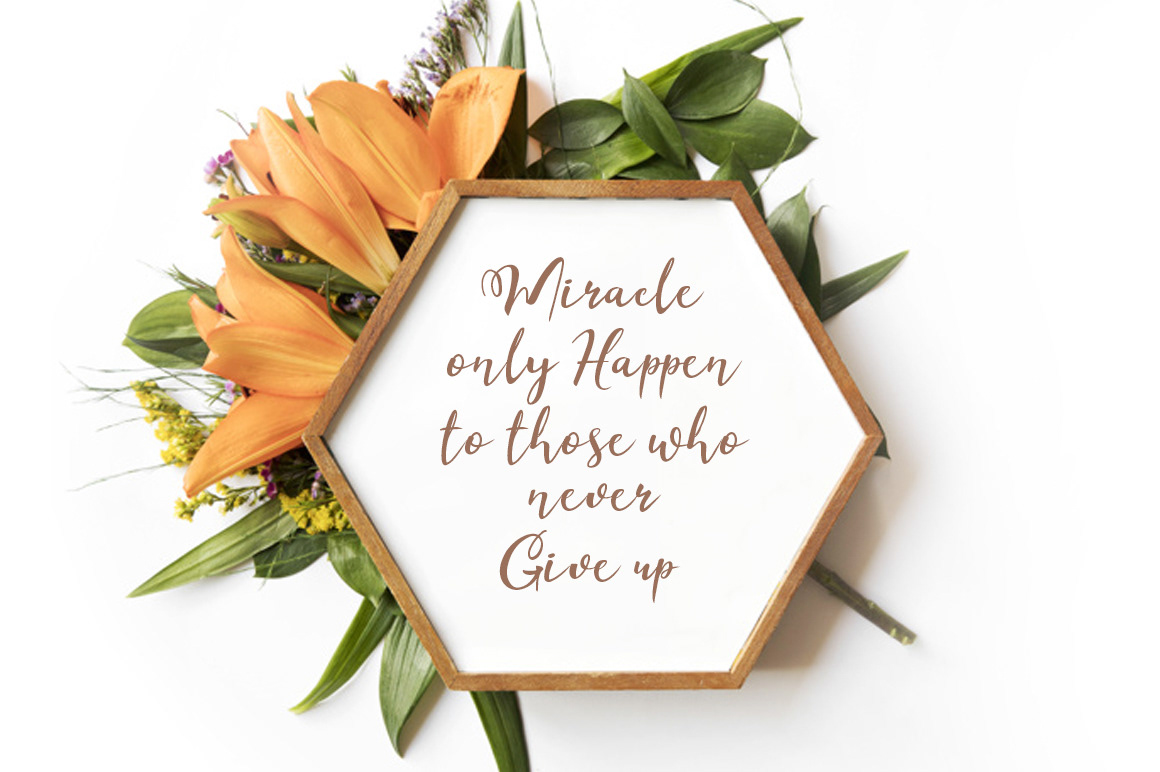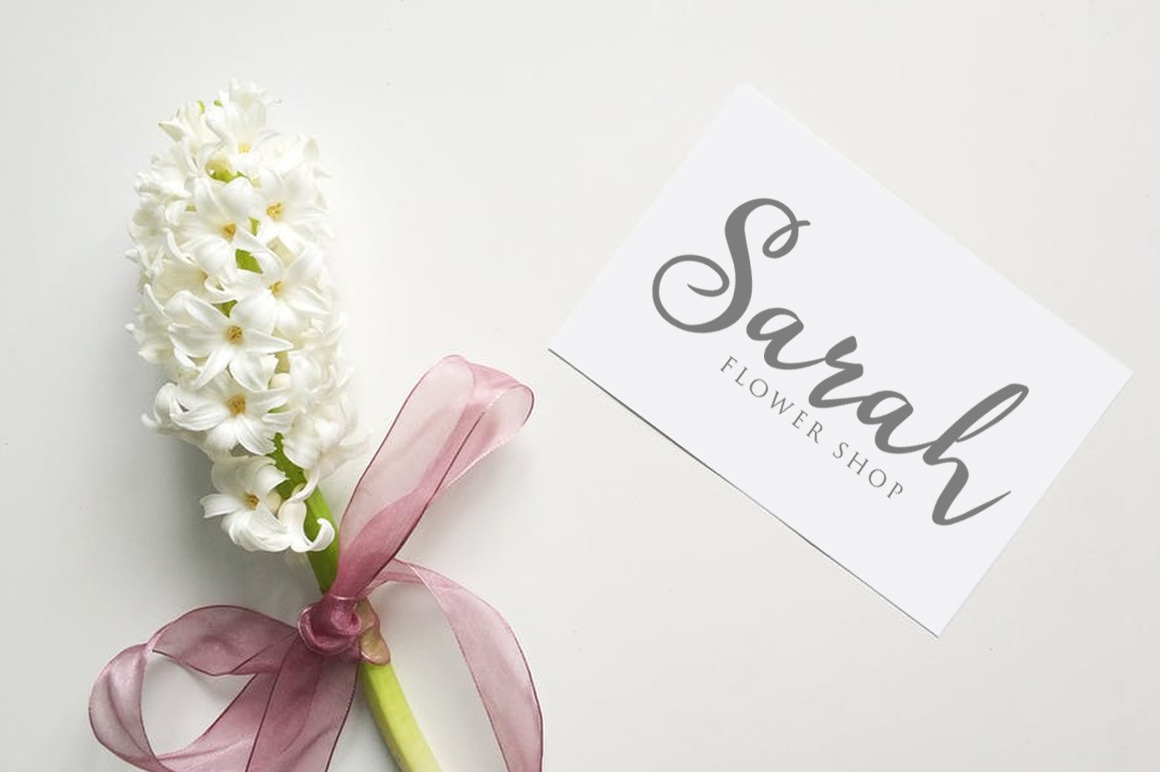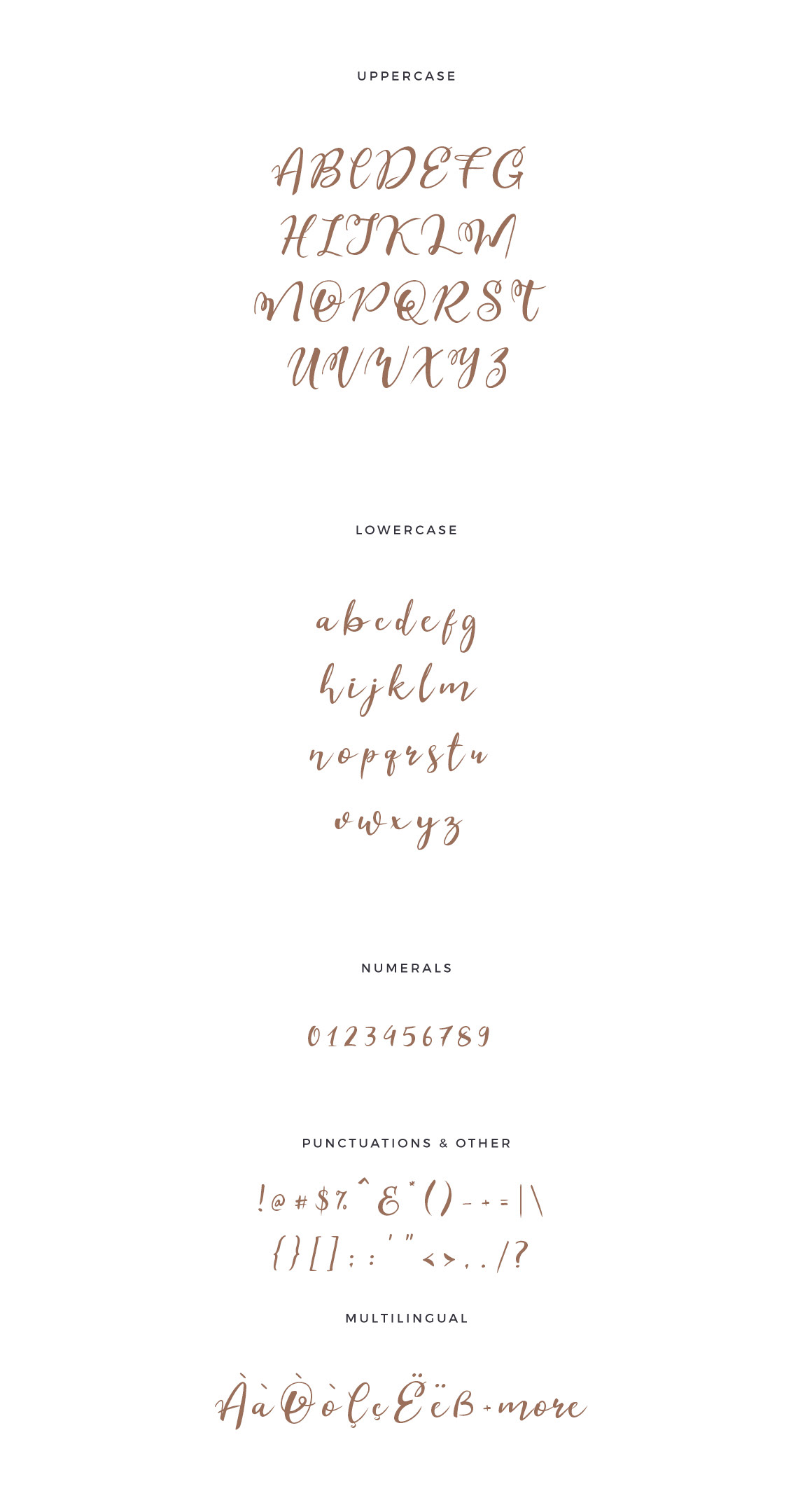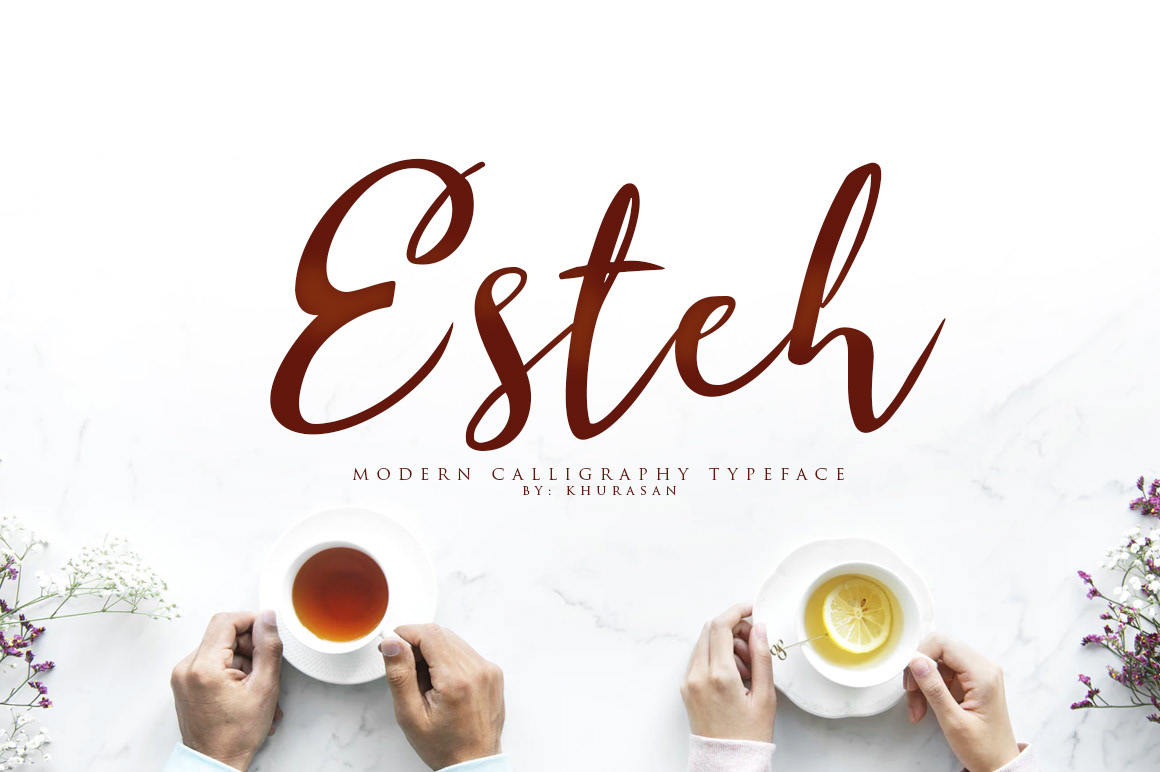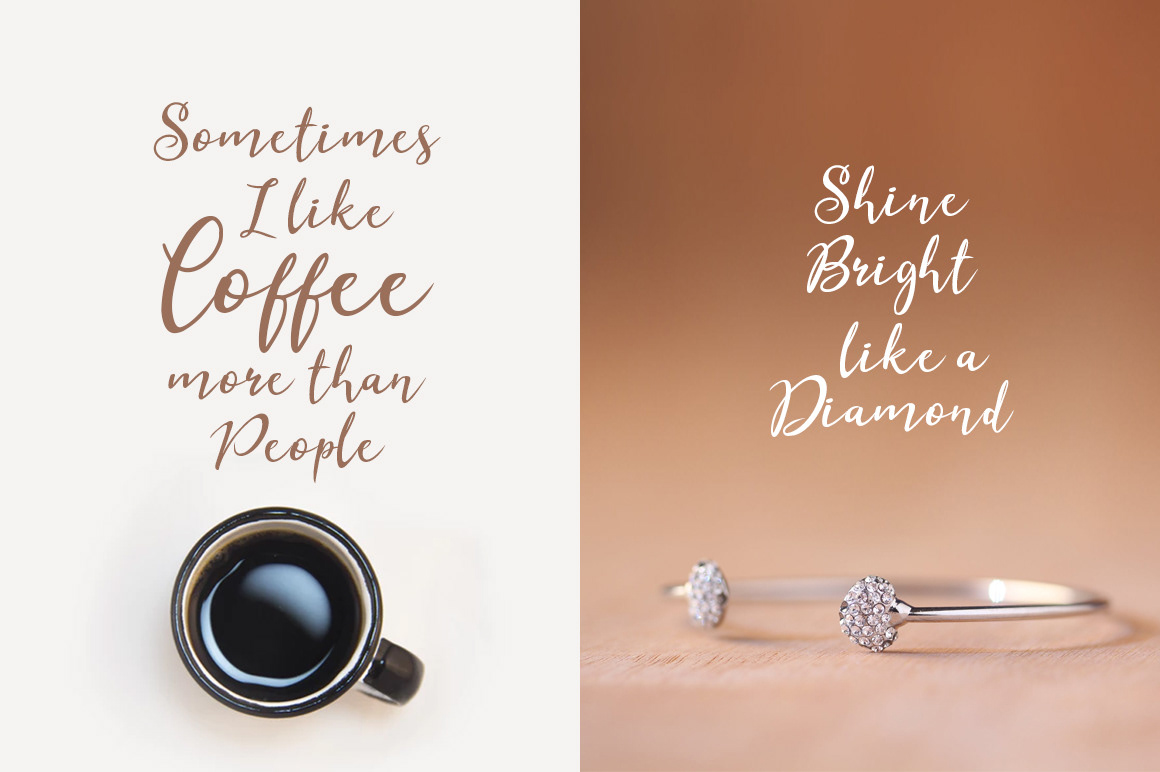
Esteh Script Font
Esteh is a impressive modern calligraphy script font. It comes with full set of uppercase, lowercase letters, numerals, symbols and multilingual support. Script suitable for logo, branding, invitation, greeting card, signature, poster and any design that you create.